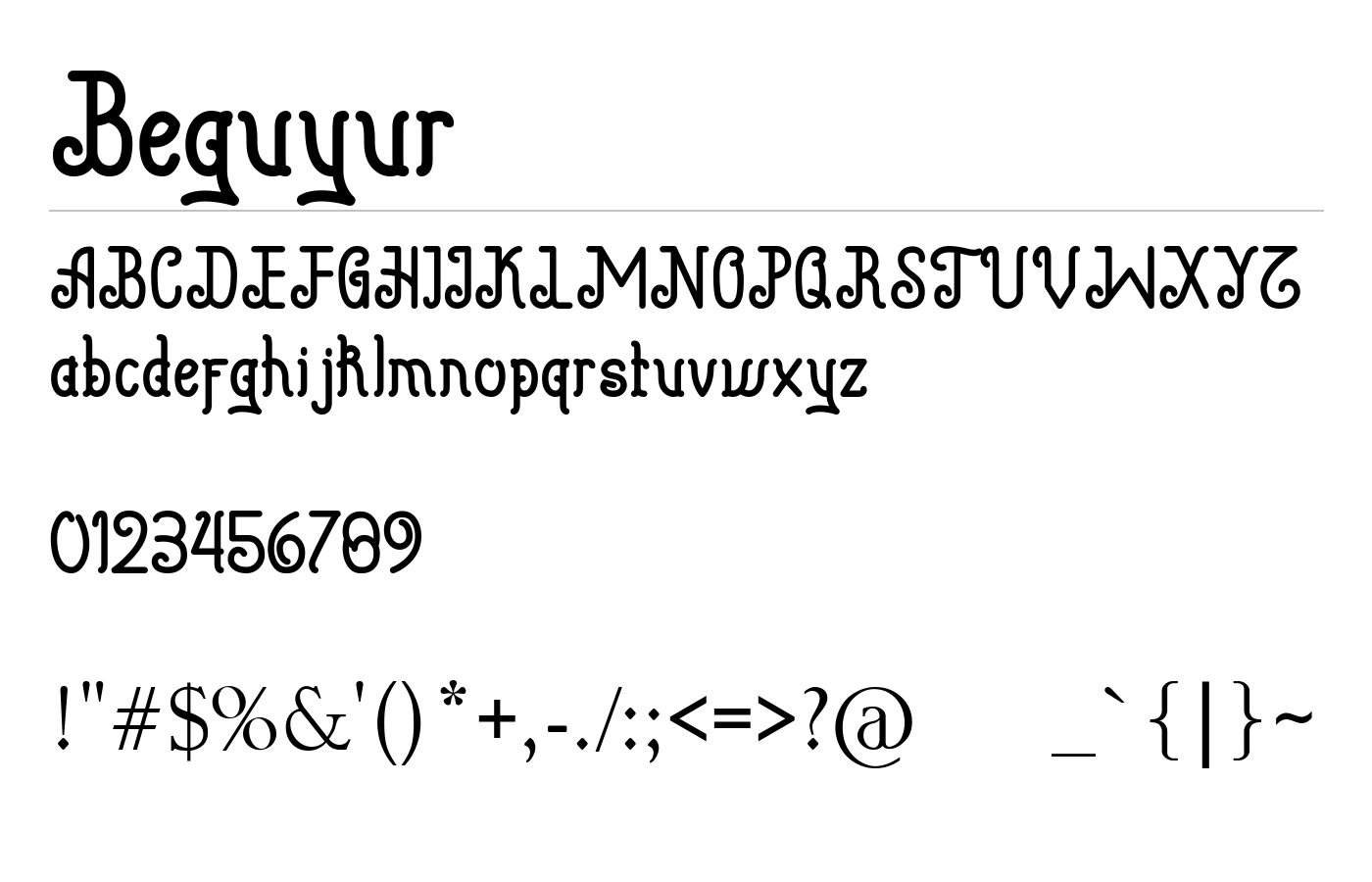
Beguyur is a unique serif font featuring a playful, hand-drawn style with moderately high contrast and distinct, quirky details like curled terminals and stylized letterforms. Its slightly condensed width and consistent stroke weight make it suitable for creative headlines or branding that seeks a vintage yet whimsical feel. This font works well for artistic projects, posters, and packaging where a touch of personality and charm is desired.
Beguyur Font